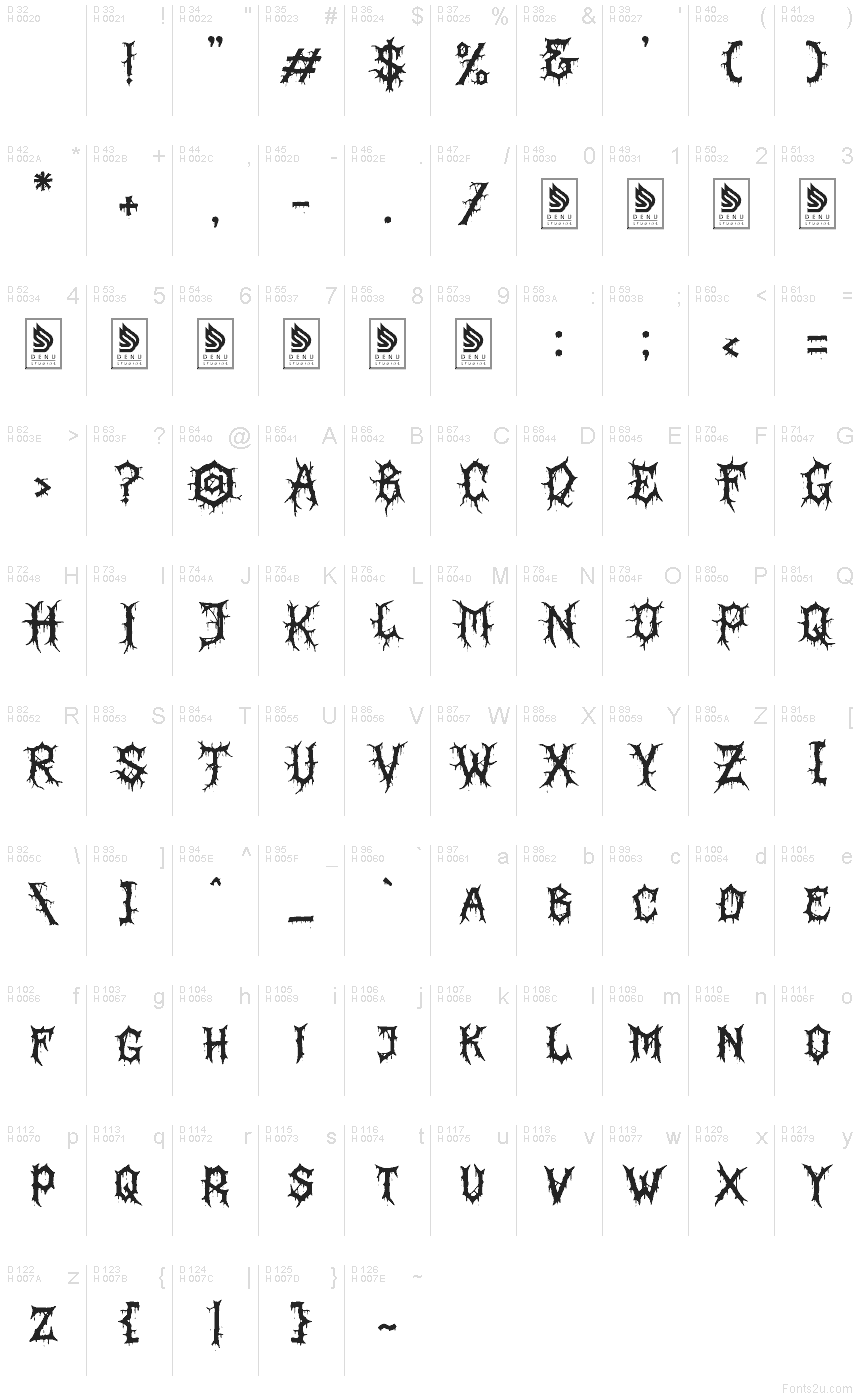
Kerak Neraka
Kerak Neraka font by Denustudios is a free scary display font. Its defining trick is the gnarled, rootlike spikes that erupt from every stroke, as if the letters grew in the dark and kept the thorns. The forms feel wet-ink heavy yet surprisingly rhythmic, so the wordshape locks together without turning to mush. Big, jagged silhouettes, tight inner texture, and just enough spacing keep the chaos legible.
Using Kerak Neraka, headlines hit like a scream—great for horror posters, metal band logos, haunted attraction signage, Halloween merch, game titles, and thriller book covers. This free font wants scale and contrast; set it large and give it air around the edges. Pair with a clean condensed sans for copy to let the spikes do the shouting.